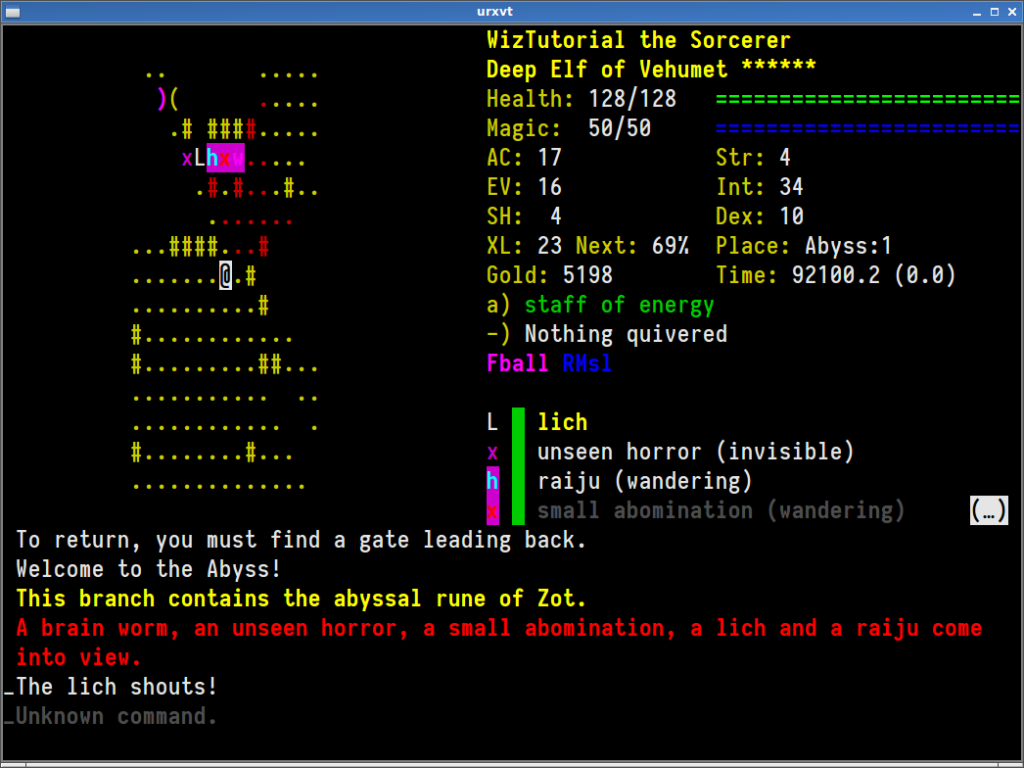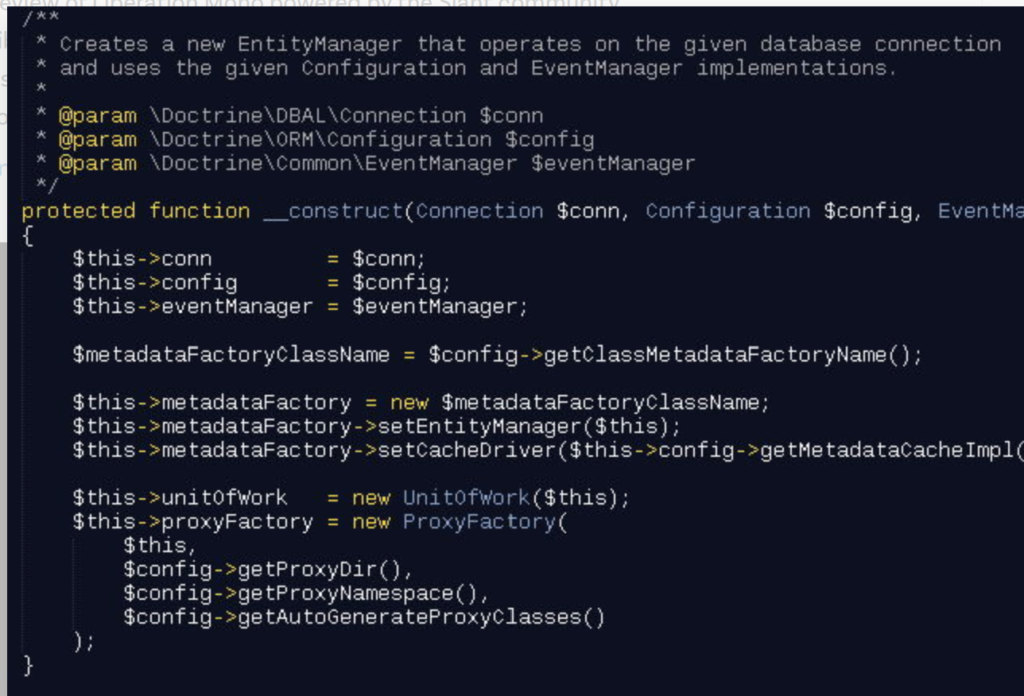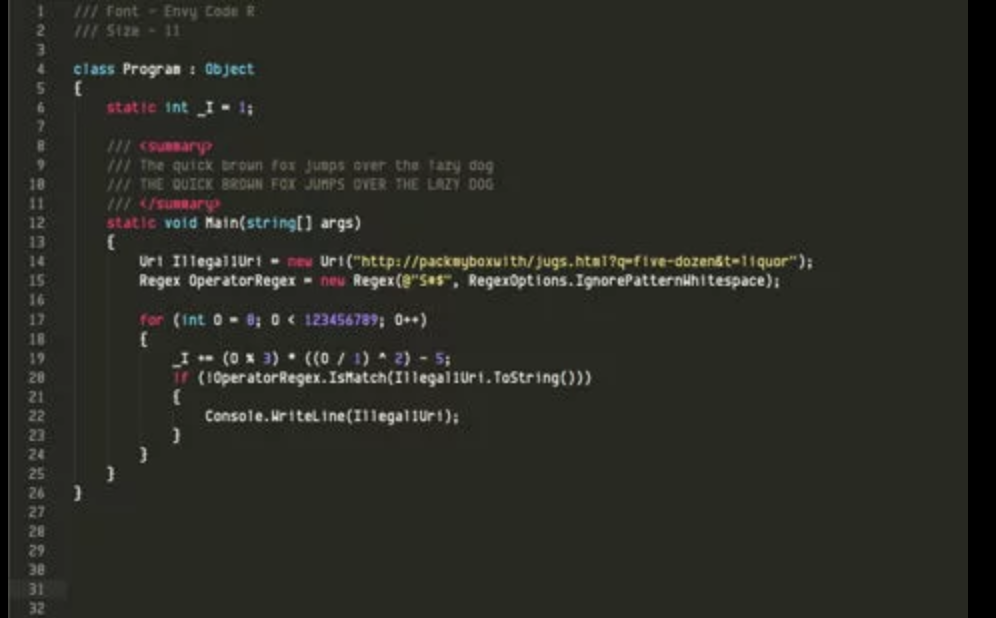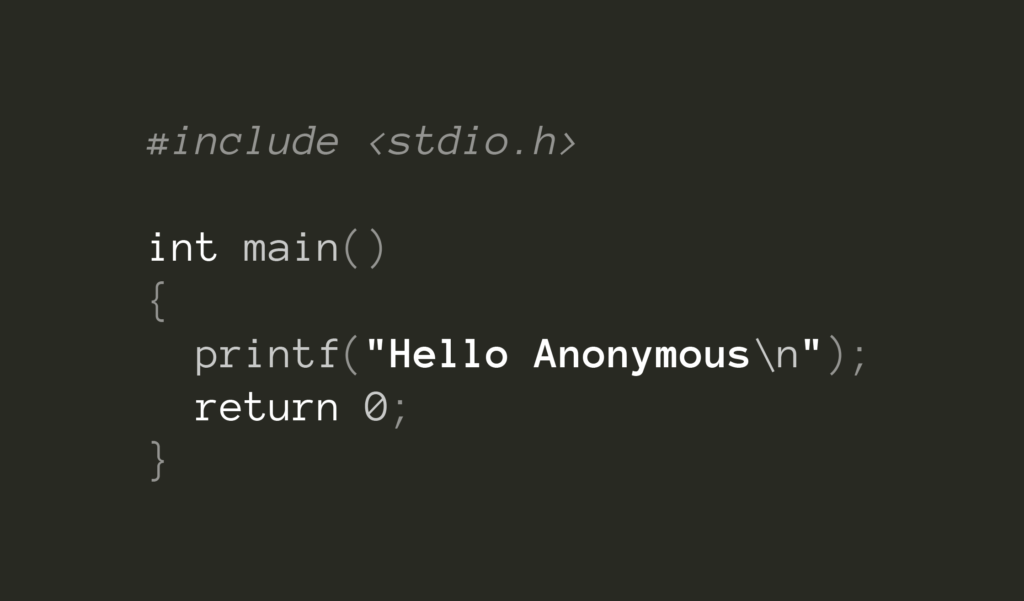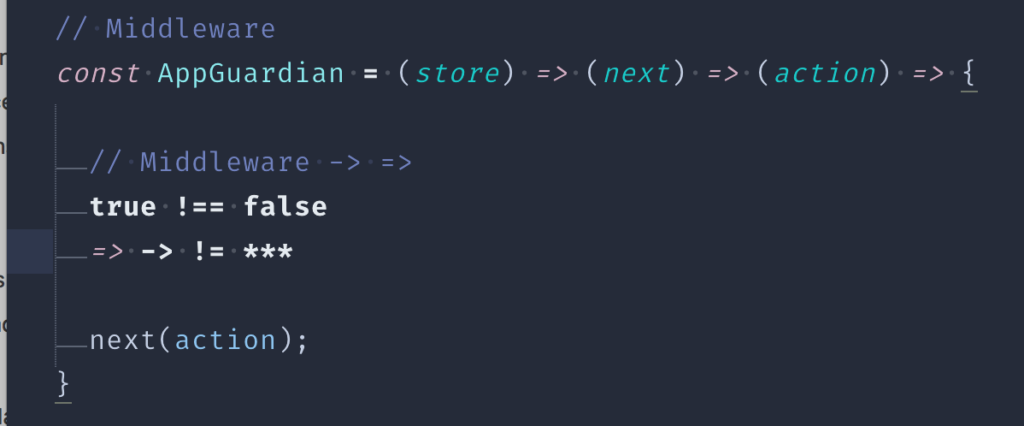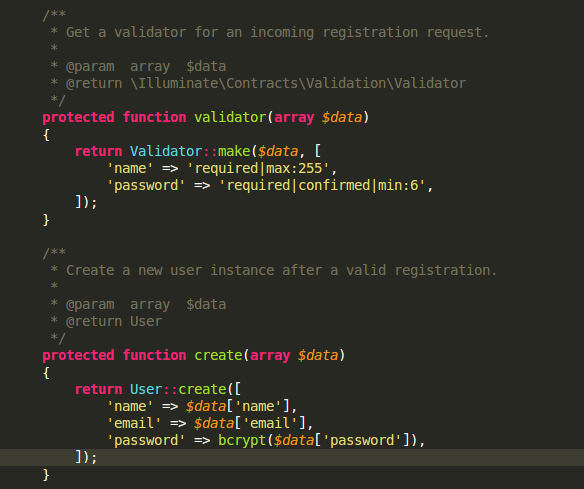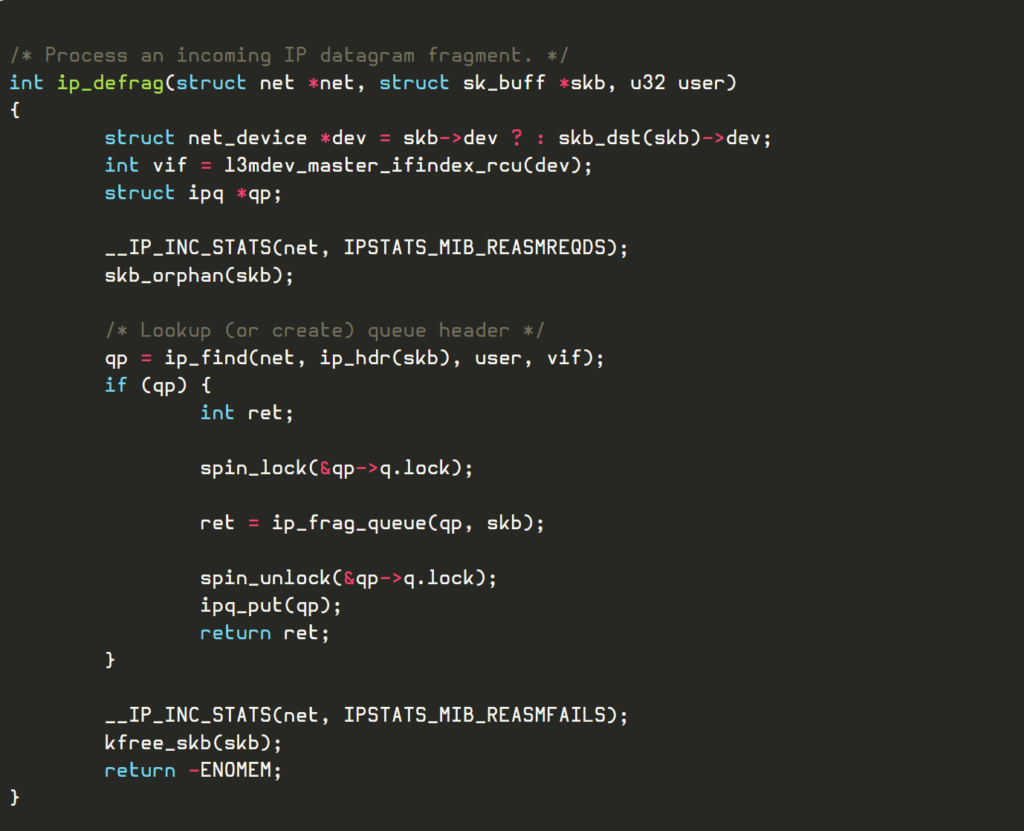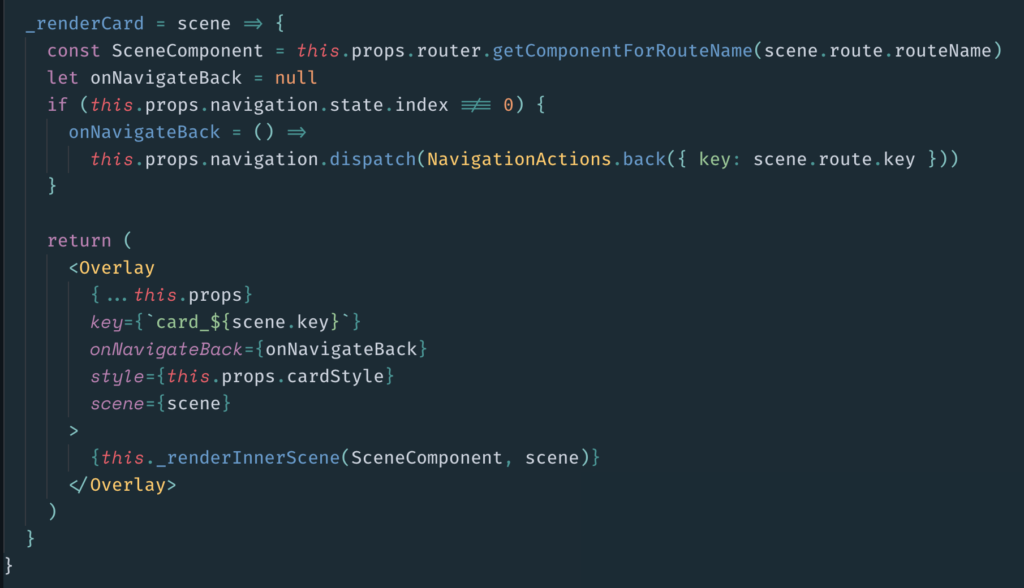
In this article, I will be introducing you to 20 of the amazing and best Coding fonts out there, some of which you might have/haven’t hear.
As Developers, We spend a lot of time with our computers writing codes and there are certain factors that affect our productivity.
Most developers prefer dark mode (I suppose you do too). Fonts can also be an issue, to avoid bugs or perhaps limit bugs it is important to use clean and clear fonts that allow you to see your codes better.
So, let’s get started with the list
1. Fira Code
FIRA Code is free, comes with a lot of amazing ligatures, It is easily incorporated into Visual Studio code and a lot of developers seem to love it.
2. Source Code Pro
Source Code Pro is free, it is designed for UI environments. Developers are really “crazy” about it. A Developer even tattooed it on his arm.
3. Victor Mono
Victor Mono is free and comes with semi-connected cursive italics. It’s an amazing font, try to donate to them if you like it.
4. Inconsolota
Inconsolata, also free, comes with ligatures for a great coding experience, it is an open-source alternative for Consolas.
5. Monaco
Monaco is a monospaced sans serif font that comes with Mac OS. Some video tutorials might teach you how to install on Linux but it’s not really approved.
6. Dank Mono
Dank Mono is an amazing font that comes with ligatures for a fair amount of 40$. It’s worth it if you can afford it.
7. Ubuntu mono
UBUNTU mono looks great, it is available for free on Google fonts, you should check it out.
8. Consolas
Consolas is monospaced sans serif and comes pre-installed with Microsoft Office on Windows, it’s available on Mac computers so you can check it out.
9. Iosevka
Iosevka has made a lot of top ten lists, it’s available for all computer OS, you can always find it, it’s free as well.
10. Operator mono
Operator mono cones with a huge price of 200$ but I daresay it’s worth it, it comes with significant features, like syntax looking very different from each other in terms of style and color, you could easily detect a bug.
11. Anonymous Pro
Anonymous Pro is a family of four fixed-width fonts with coding in mind it features an international Unicode character set.
12. Hermit
Hermit is designed specifically for coding, it’s clear, pragmatic and very readable. It’s also free.
13. Eldo
Eldo is designed to make each character appear unique and different so as to ease debugging, it was designed specifically for coding also and is free.
14. Melso
melso is a customized version of Apple’s Menlo font. Great monospaced font for development work. Should also work with the Windows Console
15. Vera sans mono
VERA Sans Mono is labeled as a Fixed-width font. Bitstream Vera Sans Mono font family has 4 variants.
16. Pt Mono
PT mono is a simple Russian style font, it’s good for coding and also greats on websites and documents. It’s also free
17. Envy code
Envy Code is designed with programming in mind, it’s working with all OS and is equally free.
18. Liberation Mono
Liberation Mono is a monospaced font that is designed by Red Hat. This font is labeled as a Fixed-width font.
19. DejaVu
DejaVu is open source and purposed for greater coverage of Unicode and to provide a wider range of characters and styles at the same time maintaining the original look.
20. Droid Sans Mono
Droid Sans Mono is created by Ańdriod and looks good on an IDE. It’s free.